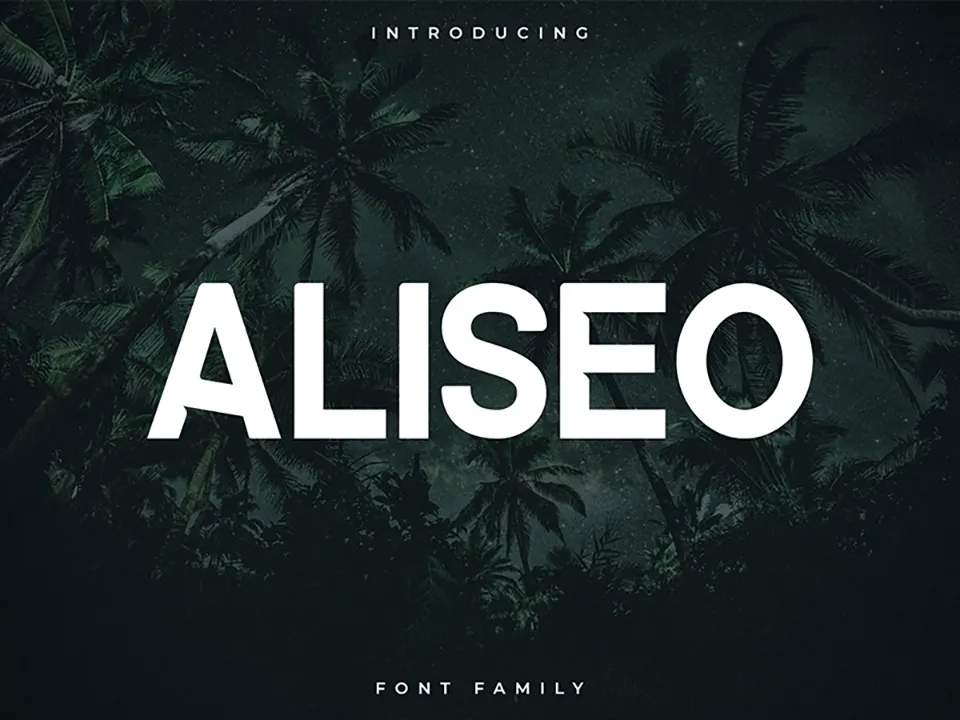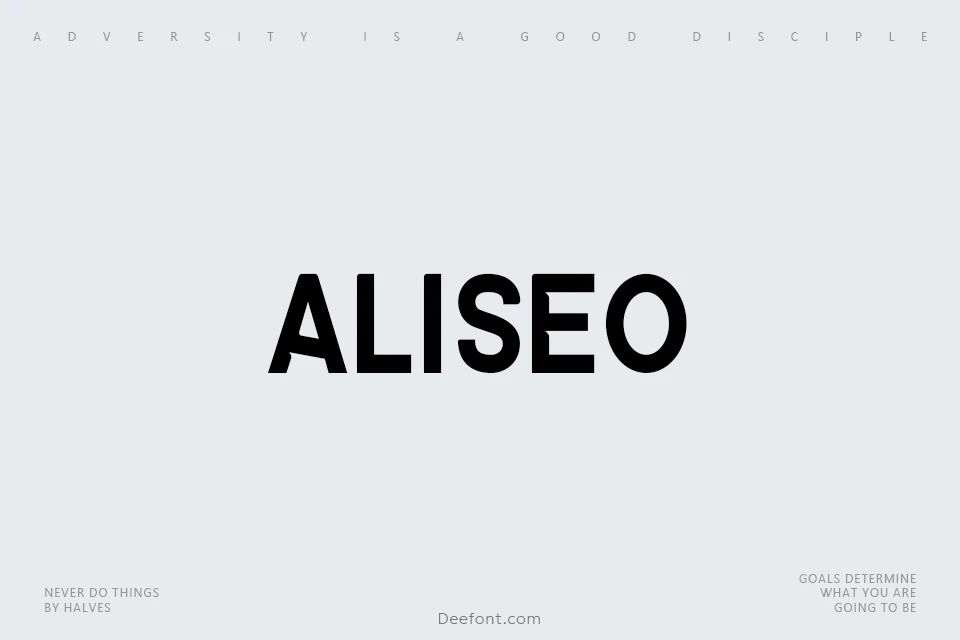
Aliseo Font
Aliseo Font is a modern font family designed with versatility in mind. Its clean, bold lines make it perfect for impactful headlines, branding, and display purposes. Aliseo’s contemporary aesthetic brings a touch of sophistication to any project, ensuring your message stands out with clarity and style. Whether you’re working on web design, print materials, or social media graphics, this font offers a range of weights and styles to suit your needs. With its balanced letterforms and timeless appeal, Aliseo is your go-to choice for creating memorable and professional designs. Elevate your creative work with Aliseo and make a lasting impression.